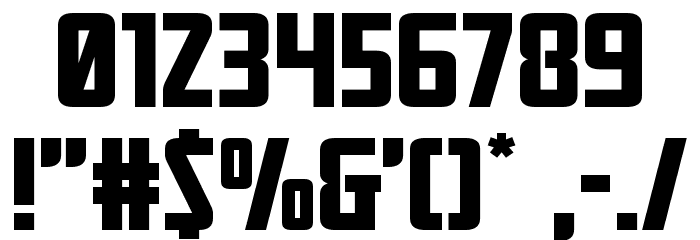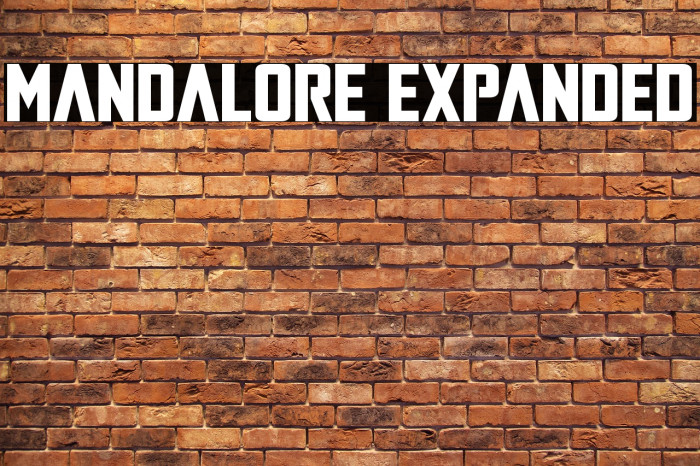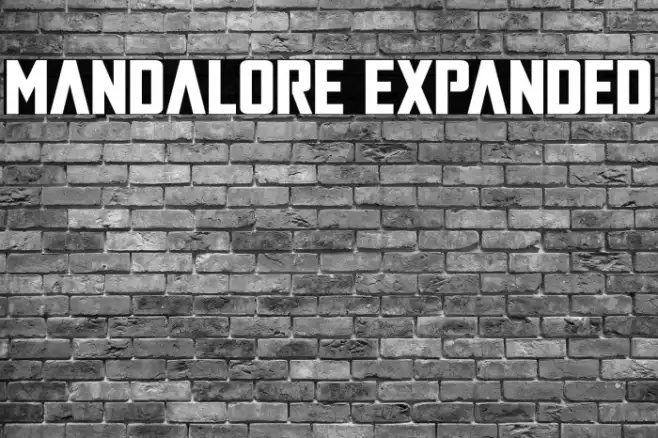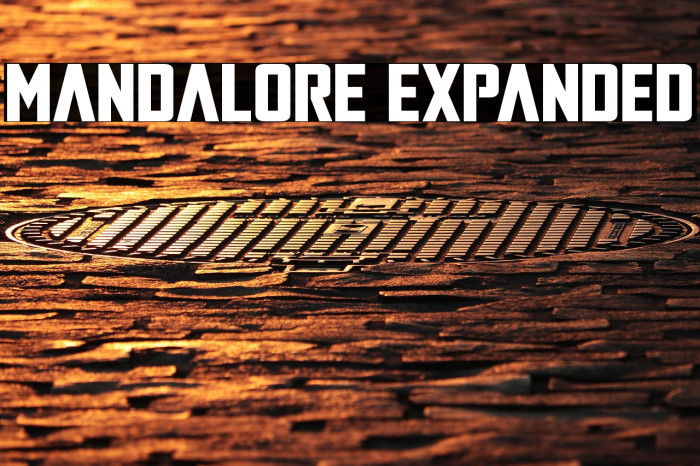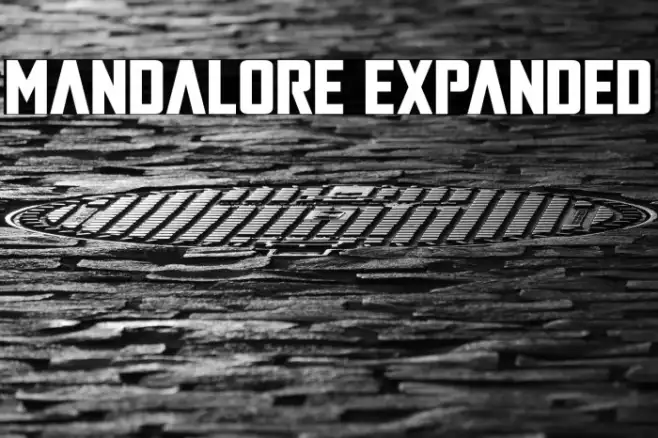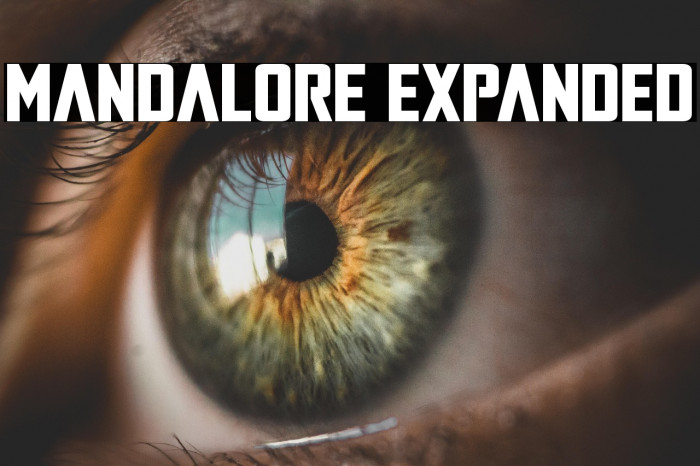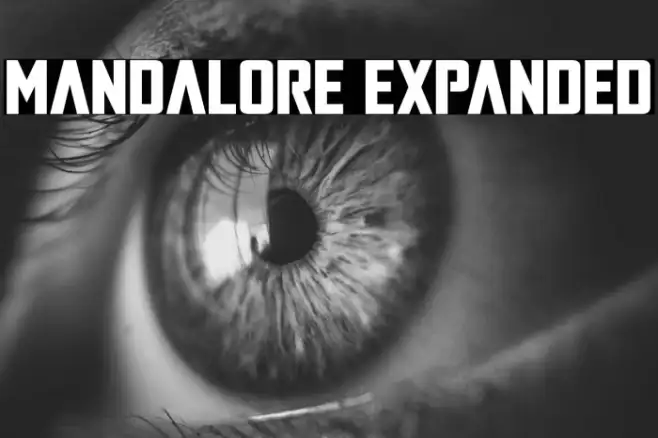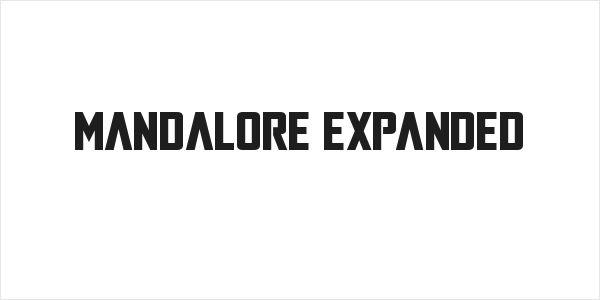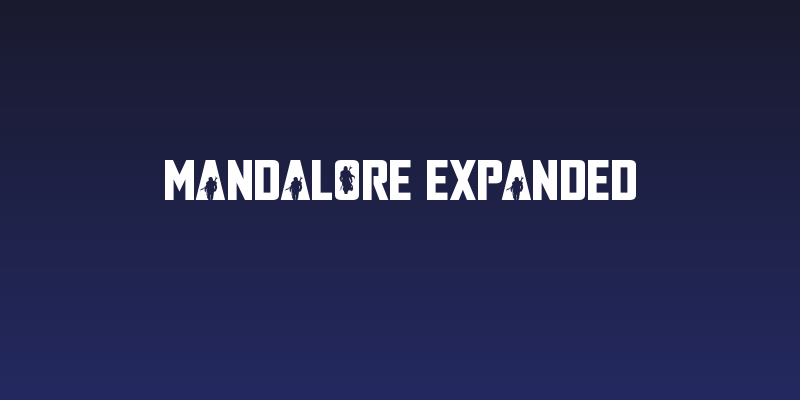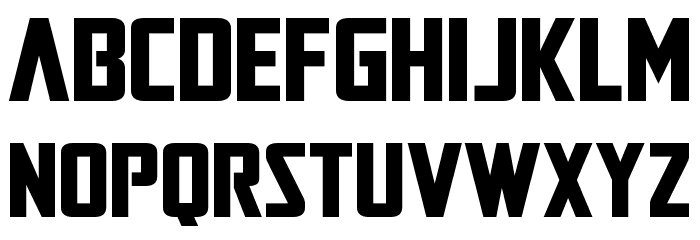
Mandalore Expanded Font
Mandalore Expanded Description
This font features a bold and striking design with strong geometric shapes and a futuristic aesthetic. The uppercase letters are characterized by their sharp angles and solid structure, giving a sense of strength and modernity. The inclusion of unique silhouettes within some letters adds a distinctive touch, making it stand out. The numbers and special characters maintain the same bold and angular style, ensuring consistency across all glyphs. This font's expanded width and uniform stroke thickness contribute to its commanding presence, making it ideal for impactful visual communication.
| Proposed Projects | Ideal for sci-fi themed projects, branding, posters, and video game titles. |